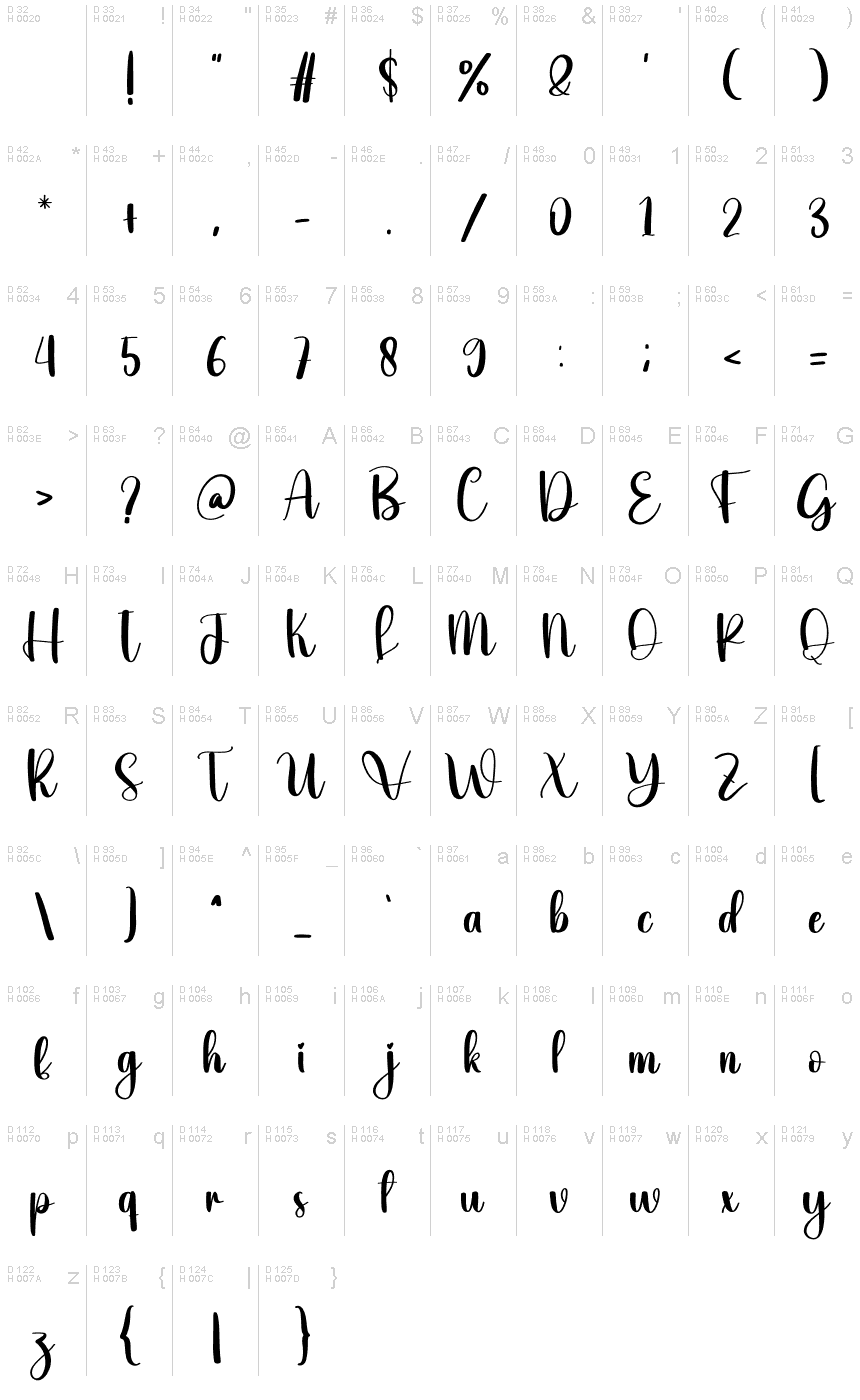
View, designed by Scratchones, is a handwritten font that breathes personality and charm into every character. Each stroke of this elegant typeface is crafted to embody the intimate and bespoke nature of hand-penned text, inviting viewers into a world where each letter tells its own story. With its fluid lines and organic movement, View offers an aesthetic that is at once modern and timeless.
This font's visual appeal lies in its combination of casual flair with meticulous design. The way the letters connect and the varied line weights suggest a natural flow, making it not just pleasing to the eye but also highly readable. It is this balance that makes View an excellent choice for projects that require a touch of humanity—be it wedding invitations, personalized branding, or creative editorial work.
View's versatility extends beyond its visual style; it has the potential to add depth and authenticity to any project that seeks to stand out. Whether you're looking to evoke elegance or inject a dash of whimsy into your designs, View delivers with an effortless grace that can only come from a font designed with the human touch in mind.